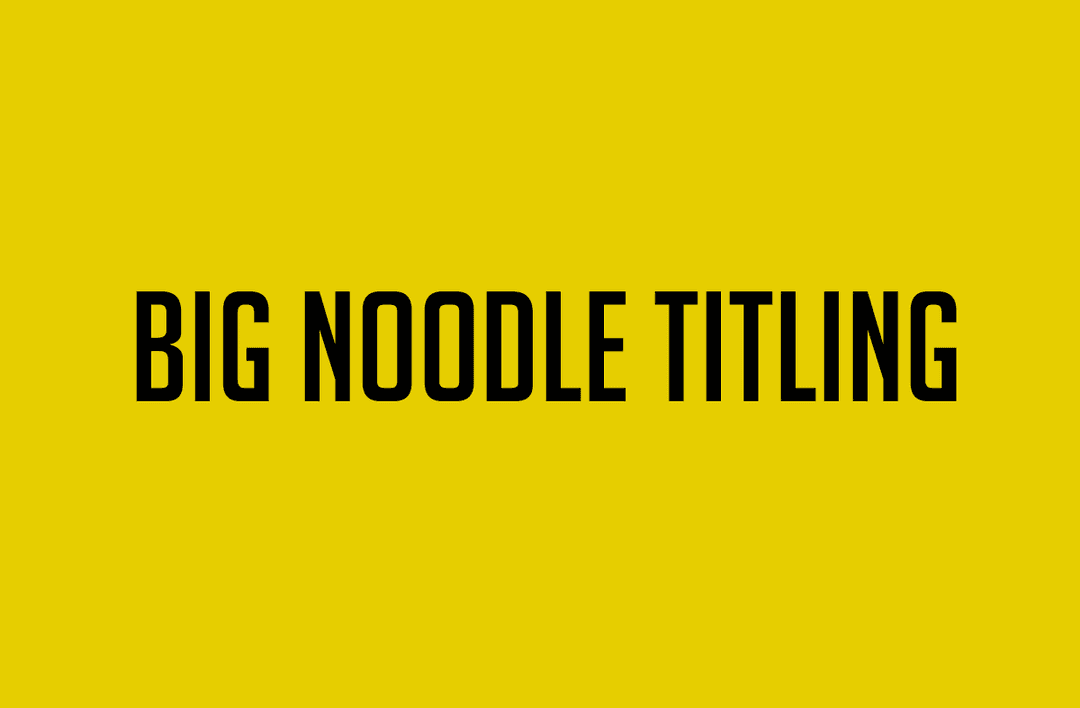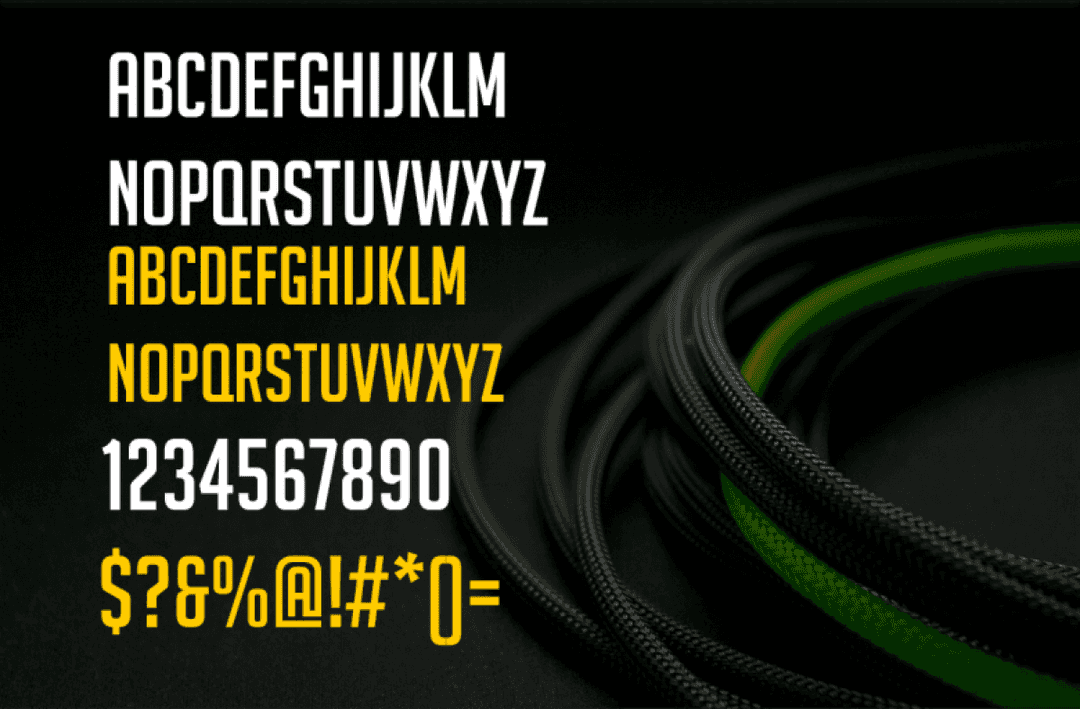
The Big Noodle Titling. This is a modern sans serif with 3 fonts! Big Noodle Titling was designed on a generic set of capitals built from the gothic even width principle, made out of squared forms, simple terminations: the result is excellent legibility in any medium. What makes Big Noodle unique is its basic appearance and extreme practicality.